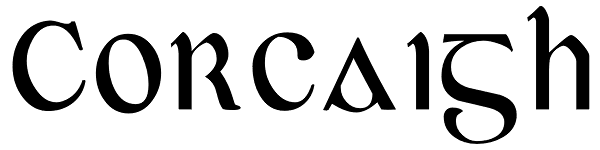
Corcaigh
Corcaigh is based on the logo of Conradh na Gaeilge, the Gaelic League. Corcaigh was first digitized in 1997 by Michael Everson and originally used the MacGaelic character set on the Macintosh platform, and ISO/IEC 8859-14 on the PC. In 2010...